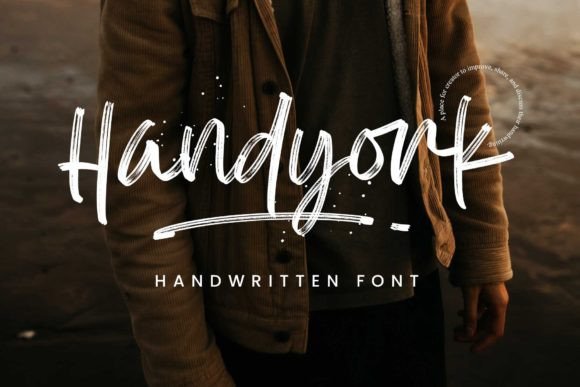
Introducing Handyork Font: The Ultimate Textured Brush Font for Modern Designs
In the world of typography, fonts play a crucial role in making or breaking a design. A well-chosen font can elevate your design, making it more engaging, readable, and memorable. If you’re looking for a font that can add a touch of personality and whimsy to your designs, look no further than Handyork Font. This textured brush font is designed to bring a natural, hand-crafted feel to your designs, making it perfect for modern designs such as fashion, branding, advertising, books, logos, cards, merchandise, and more.
What is Handyork Font?
Handyork Font is a textured brush font that boasts natural strokes and dynamic letter shapes. Its unique, irregular baseline provides a delightful experience when using it, making it perfect for designers who want to add a personal touch to their work. The font comes with alternate characters, allowing you to explore limitless creative possibilities and making each design truly unique.
Key Features of Handyork Font
- Textured Brush Font: Handyork Font has a natural, textured look that gives your designs a hand-crafted feel.
- Natural Strokes: The font features natural strokes that add a touch of organic elegance to your designs.
- Dynamic Letter Shapes: Each letter has a unique shape, making your designs more visually appealing.
- Irregular Baseline: The font’s irregular baseline adds a touch of whimsy and personality to your designs.
- Alternate Characters: With alternate characters, you can experiment with different designs and create truly unique pieces.
Perfect for Modern Designs
Handyork Font is ideal for a wide range of modern designs, including:
- Fashion: Use Handyork Font to create stunning fashion designs, from logos to branding materials.
- Branding: The font’s unique texture and natural strokes make it perfect for branding materials, such as business cards and letterheads.
- Advertising: Handyork Font can add a touch of personality to your advertising materials, making them more engaging and memorable.
- Books: Use the font to create eye-catching book covers, illustrations, and typography.
- Logos: Handyork Font is perfect for creating unique, hand-crafted logos that stand out.
- Cards: The font’s natural, textured look makes it ideal for creating beautiful greeting cards, invitations, and postcards.
- Merchandise: Use Handyork Font to create stunning merchandise, such as t-shirts, mugs, and tote bags.
Why Choose Handyork Font?
With so many fonts available, why choose Handyork Font? Here are just a few reasons:
- Unique Texture: The font’s textured brush look gives your designs a unique, hand-crafted feel.
- Highly Versatile: Handyork Font can be used for a wide range of designs, from fashion to branding, advertising, and more.
- Alternate Characters: The font’s alternate characters allow you to experiment with different designs and create truly unique pieces.
Tips for Using Handyork Font
Here are a few tips for getting the most out of Handyork Font:
- Experiment with Different Sizes: Try using the font in different sizes to see how it looks in various contexts.
- Play with Alternate Characters: Use the font’s alternate characters to add some variety to your designs.
- Combine with Other Fonts: Try pairing Handyork Font with other fonts to create a unique, multi-font design.
- Use for Headlines and Titles: The font’s textured brush look makes it perfect for headlines and titles.
In conclusion, Handyork Font is a versatile, textured brush font that’s perfect for modern designs. Its natural strokes, dynamic letter shapes, and irregular baseline make it a unique and eye-catching addition to any design. With its alternate characters and highly versatile nature, Handyork Font is a must-have for designers looking to add a touch of personality and whimsy to their work.